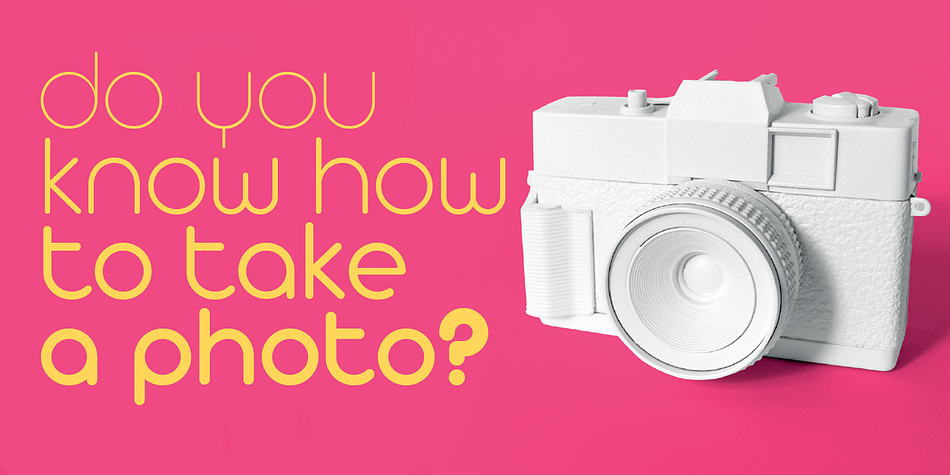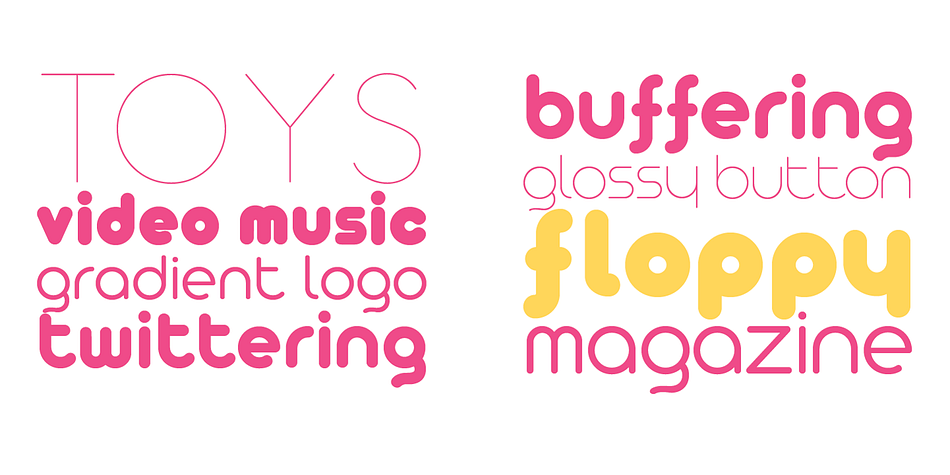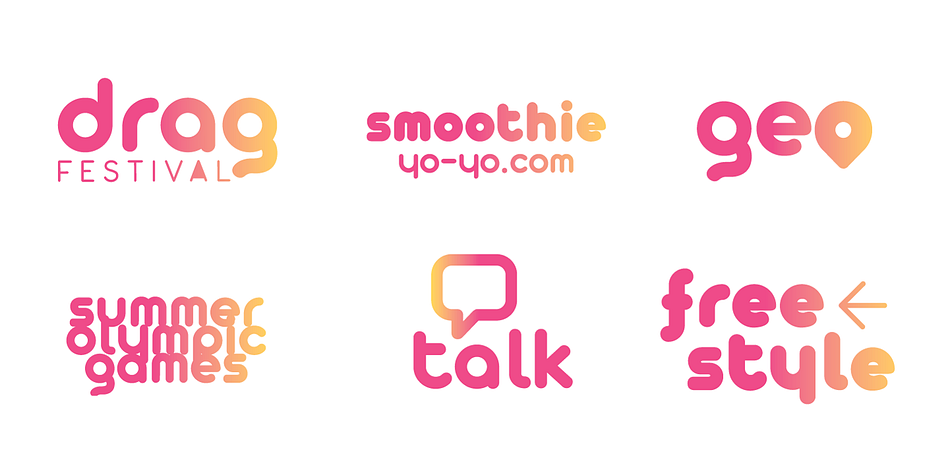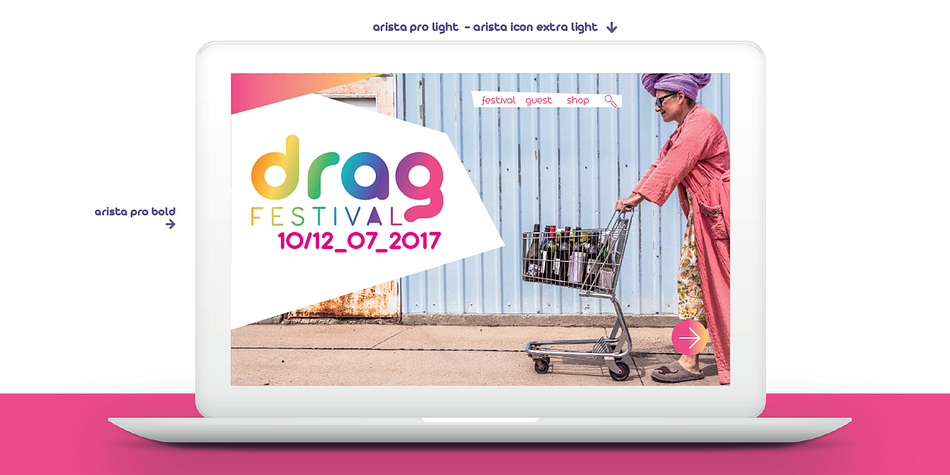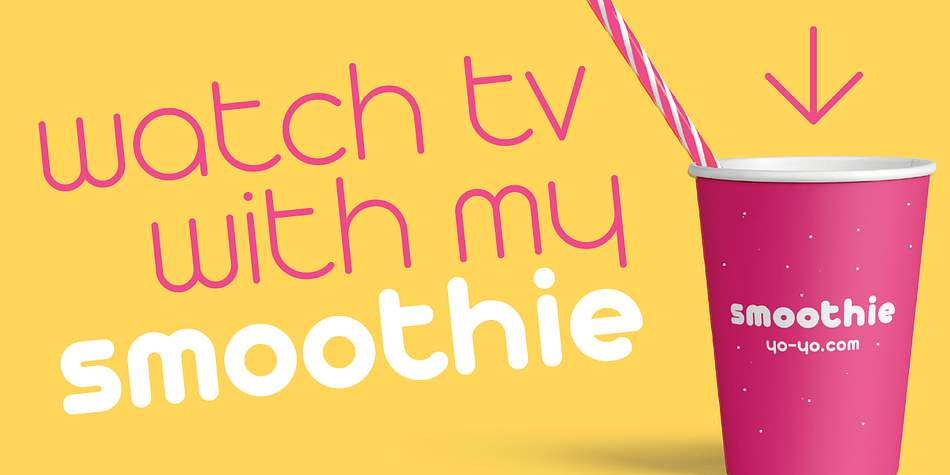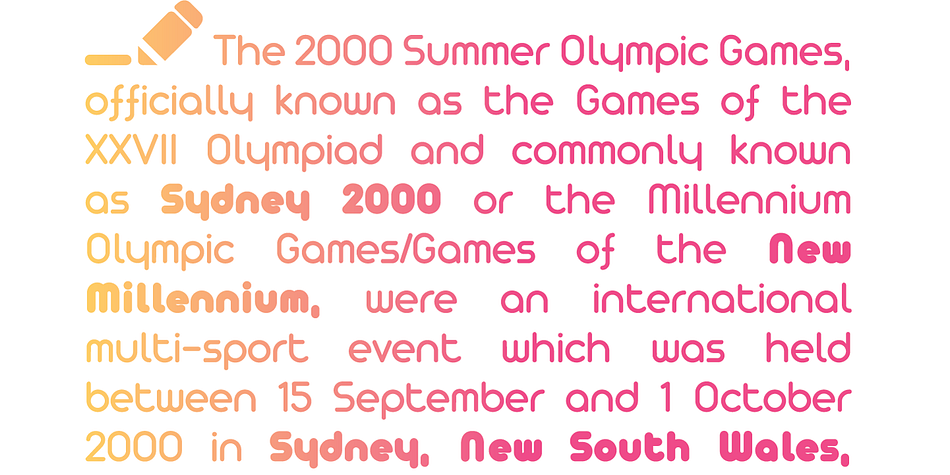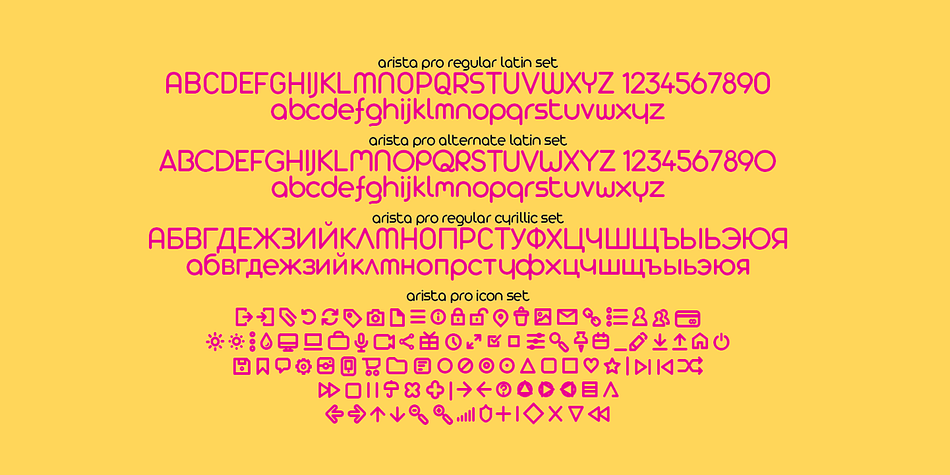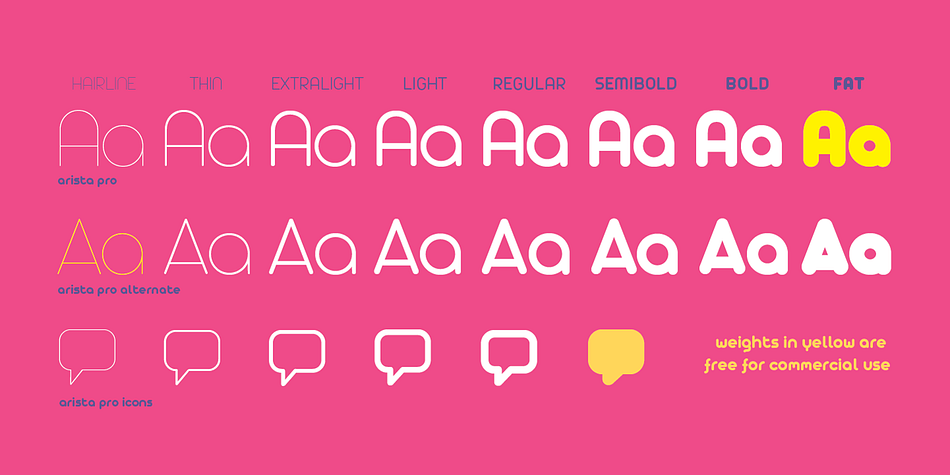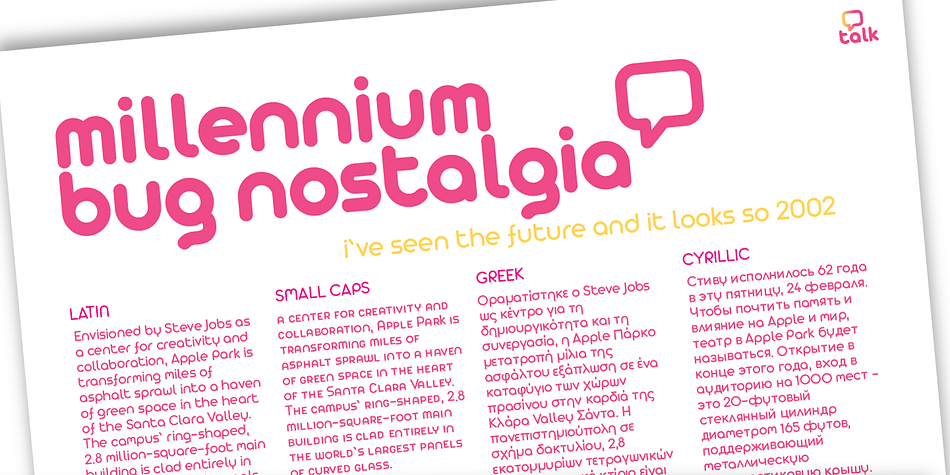
Arista Pro is a dingbat and sans serif font family. This typeface has twenty-three styles and was published by Zetafonts.
Arista Pro is the definitive version of the successful Arista typeface, designed by Francesco Canovaro, first released in 2007 as Arista Z and then reissued as Arista 2.0 in 2010. The pro version of Arista features the geometric and soft approach of the original typeface but comes in a full range of weights and two alternate versions (Arista Pro Regular and Arista Pro alternate version).
The typeface has been expanded with the inclusion of Greek and Cyrillic alphabets as well as an extended range of latin characters. A companion icon typeface, Arista Pro Icon, has been developed, allowing for variable-width monoline icons that can be used to faultlessly match the typeface line width, up to semibold weight.